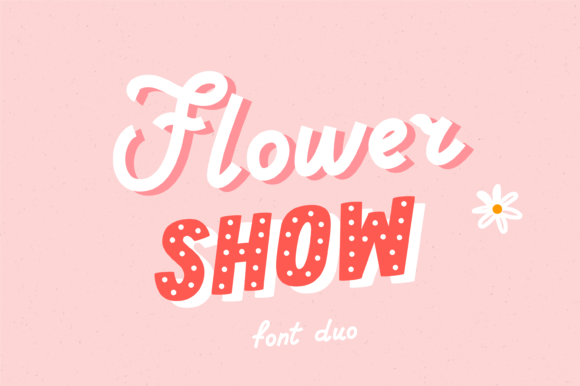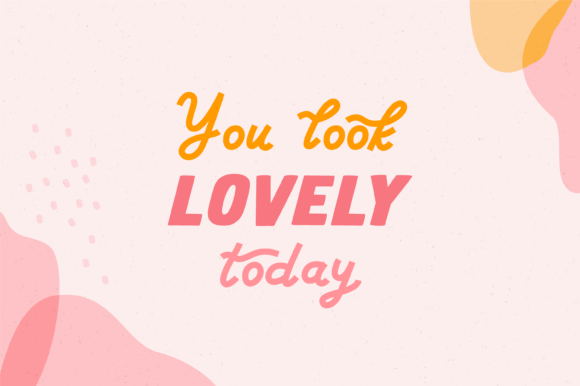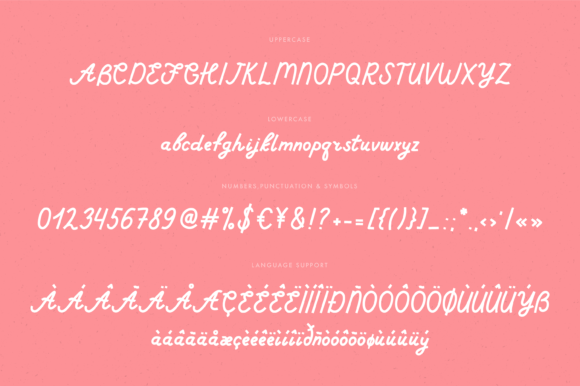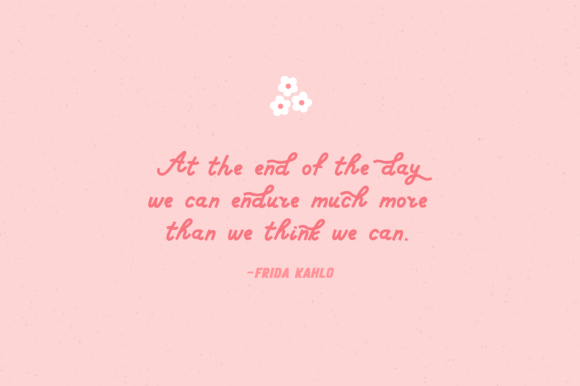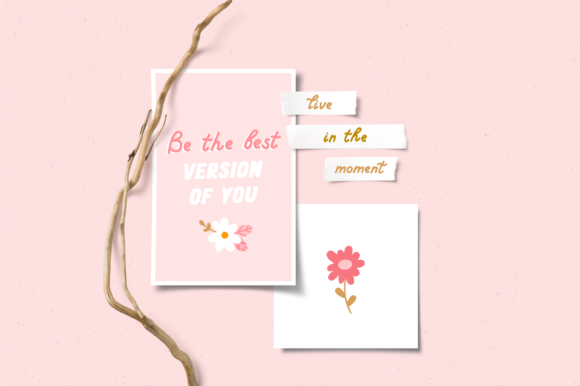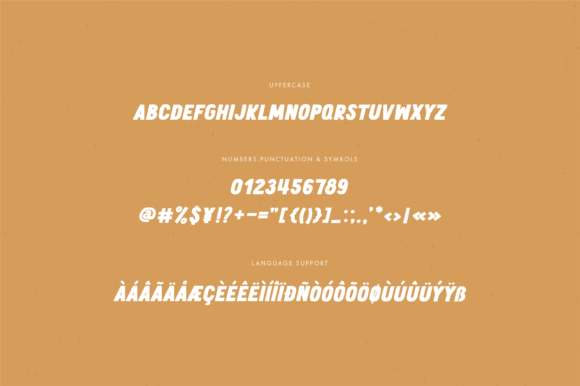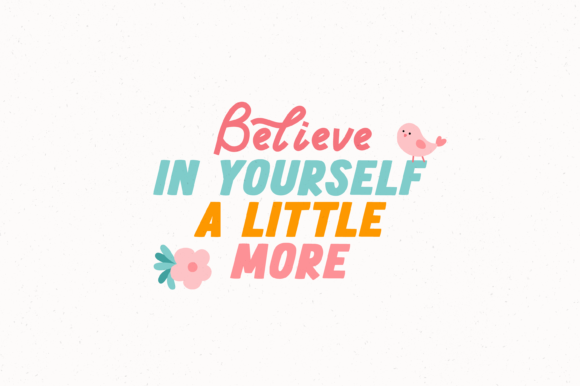
Unleash Your Creativity with the Perfect Font
Have you ever stared at a blank canvas, waiting for inspiration to strike? For designers, this moment can be both thrilling and intimidating. It’s the moment when the right font can make all the difference between a beautiful piece and a mediocre one. For those who’ve been searching for the perfect font to add a touch of whimsy and charm to their designs, we’re excited to introduce the Flower Show Font.
This playful duo font is designed to be used for a wide range of creative projects, from logos and quotes to invitations and greeting cards. With its PUA encoded design, you’ll have access to all the glyphs and swashes you need to bring your designs to life. Whether you’re a seasoned designer or just starting out, the Flower Show Font is a valuable addition to any toolkit. Its versatility and ease of use make it an ideal choice for designers who want to add a touch of personality to their work.
Key Features of Flower Show Font
- Unique Characteristics: Features elegant, cursive script with intricate floral elements, adding a touch of sophistication and whimsy to designs.
Flower Show Font Review
Overall, I think the Flower Show Font is a lovely addition to any design project that requires a whimsical touch. ✨
- The font’s unique combination of floral elements and elegant script lines adds a charming touch to text-based designs.
- It’s perfect for creating eye-catching headings and titles, especially in wedding invitations, garden-themed projects, or any other design that requires a playful feel.
- The font’s versatility allows it to be used in both digital and print projects, making it a great choice for designers working on a variety of mediums.
- The font may be difficult to read in smaller text sizes, especially for those who are sensitive to letter spacing or have vision impairments. ⚠️
- The unique design elements may not be suitable for projects that require a more serious or formal tone.
Overall, I think the Flower Show Font is a great choice for designers who want to add a touch of whimsy and personality to their projects. However, it’s essential to use it judiciously and consider the context in which it will be used.
Flower Show Font is ideal for wedding invitations, event branding, and floral-themed designs.
For best results, pair Flower Show Font with pastel colors and floral illustrations.
Experiment with font sizes and combinations to create visually appealing layouts.
Alternatives to “Flower Show Font”
Great Vibes is a beautiful, cursive script font that is perfect for creating a romantic and elegant feel. It is ideal for wedding invitations, event branding, and any other design project that requires a touch of sophistication. Compared to Flower Show Font, Great Vibes has a more refined and classic look, making it suitable for a wider range of applications.
Lobster is a fun, casual script font that is great for creating a playful and energetic vibe. It is perfect for designs that require a lighthearted and approachable tone, such as social media graphics, advertisements, and blog posts. Compared to Flower Show Font, Lobster has a more relaxed and informal feel, making it ideal for modern and trendy designs.